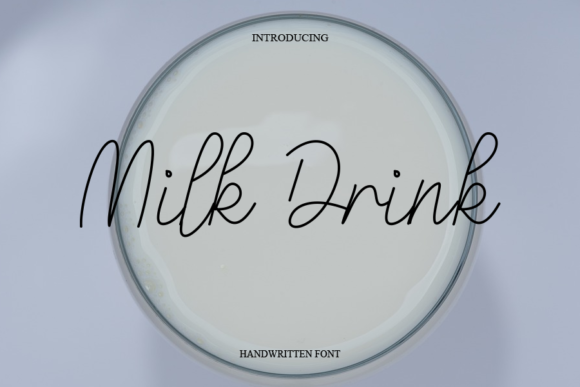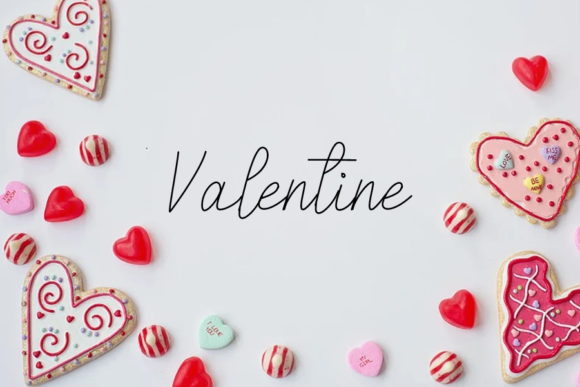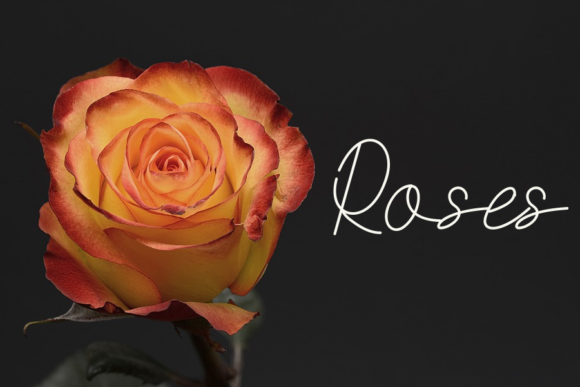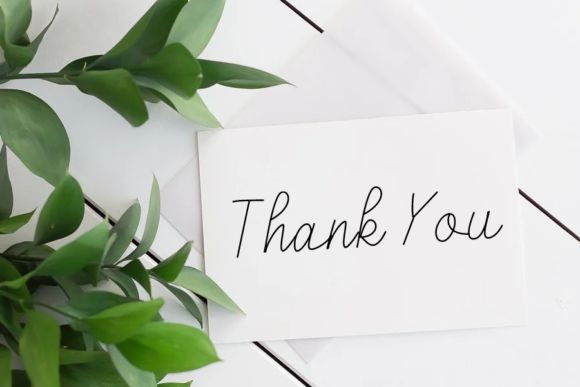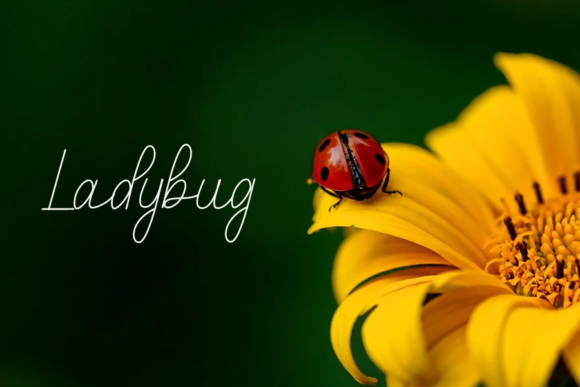
Milk Drink Font
About Milk Drink Font
Milk Drink is a thin and cute script font. Use it to make your ideas even more realistic and create spectacular designs!